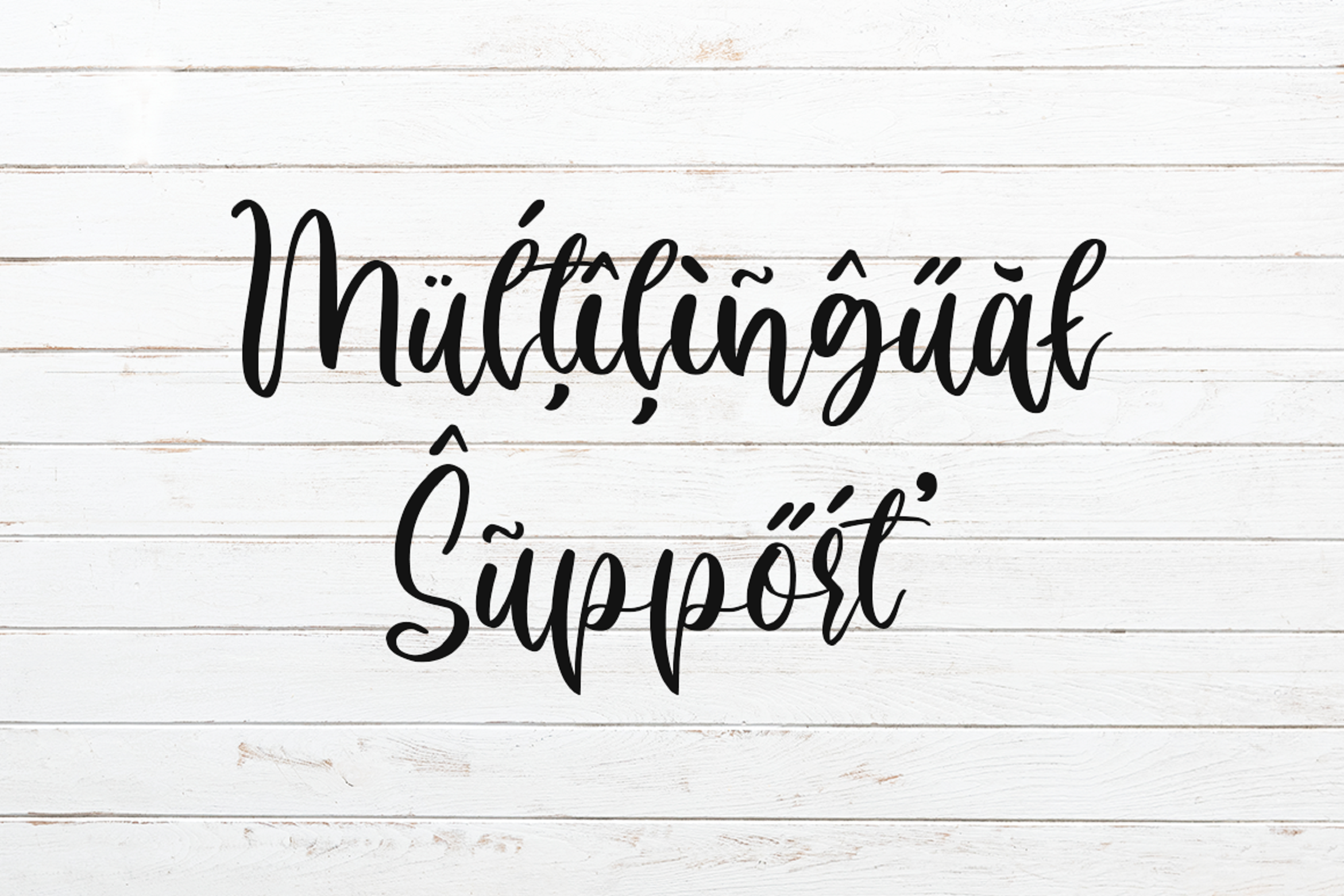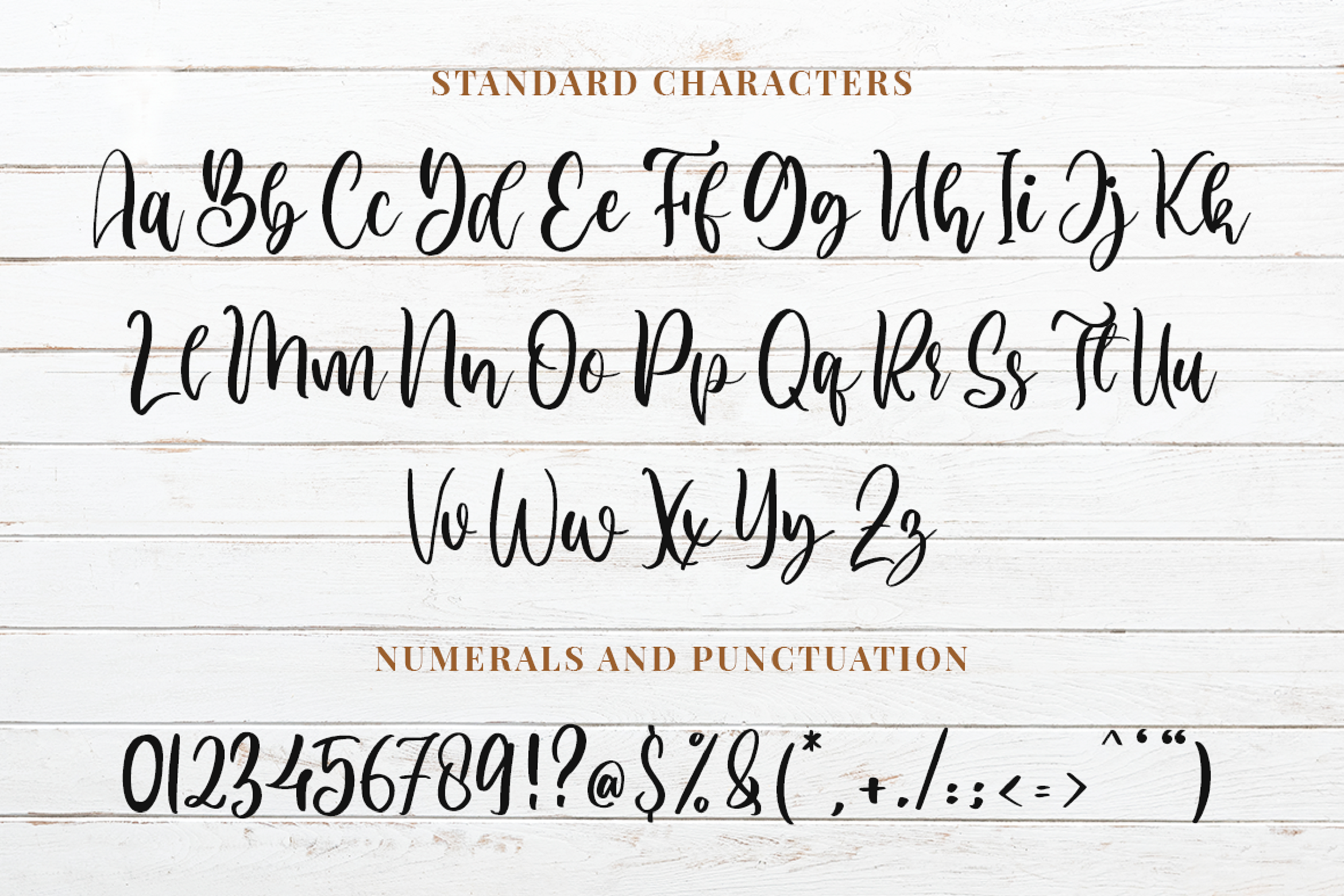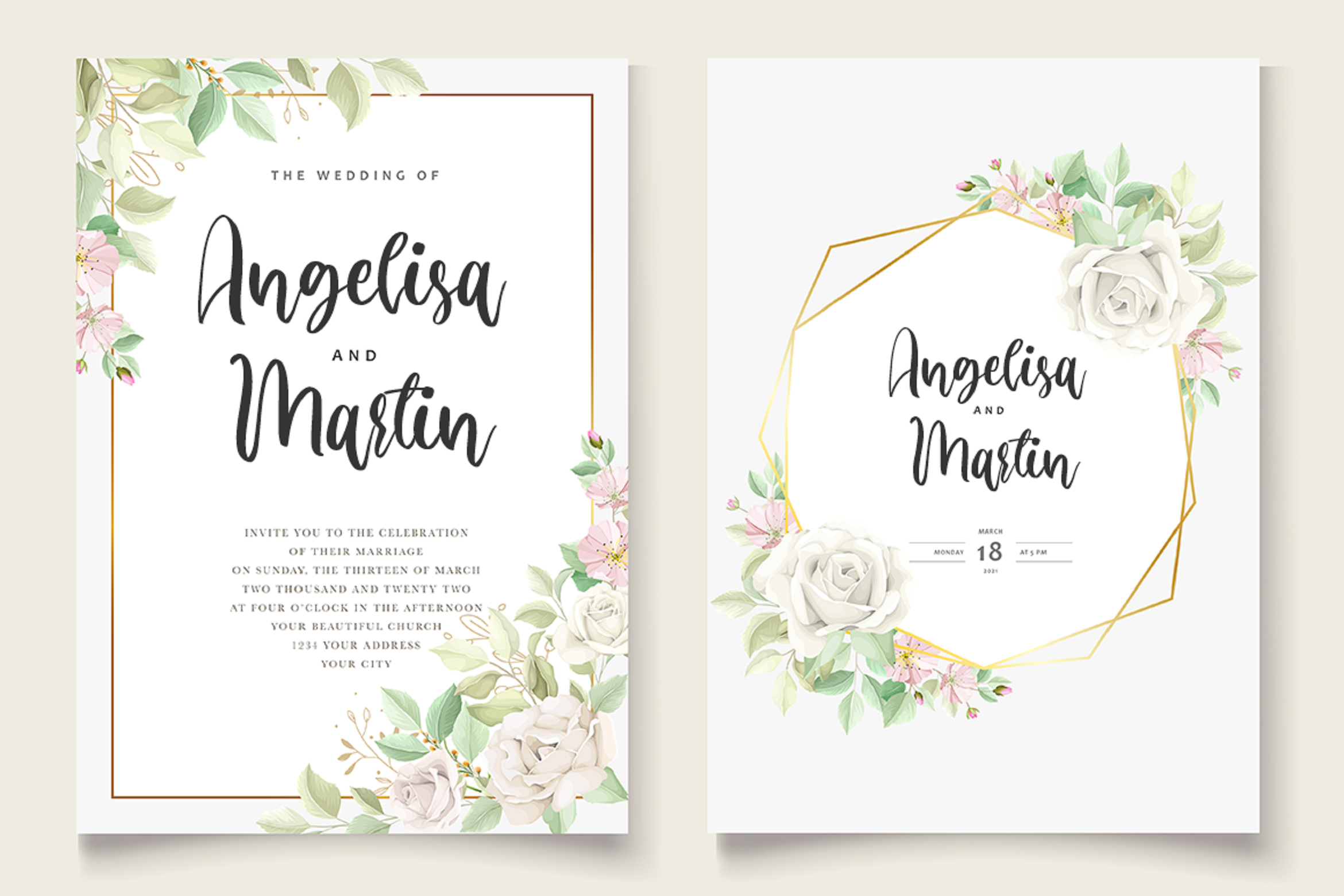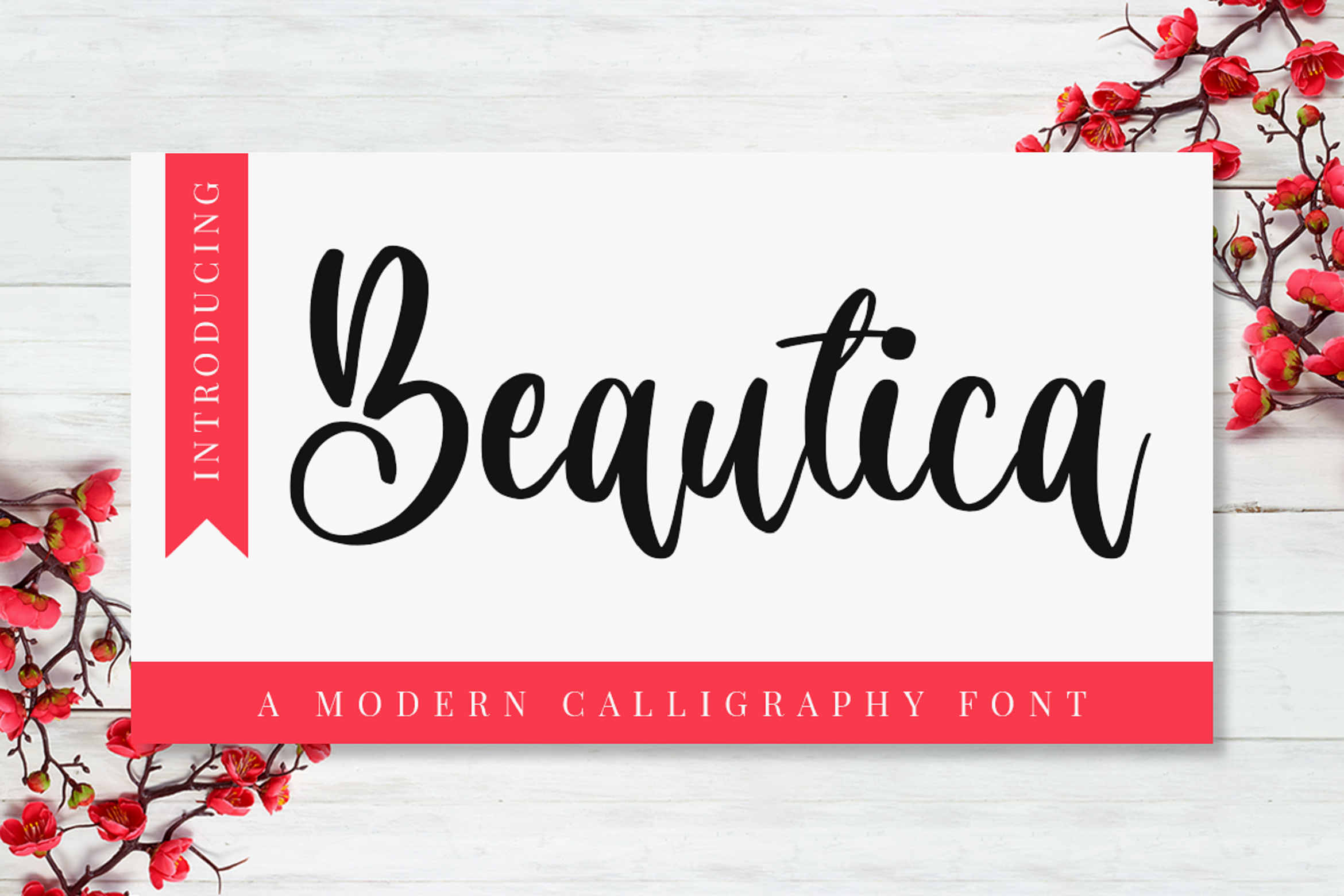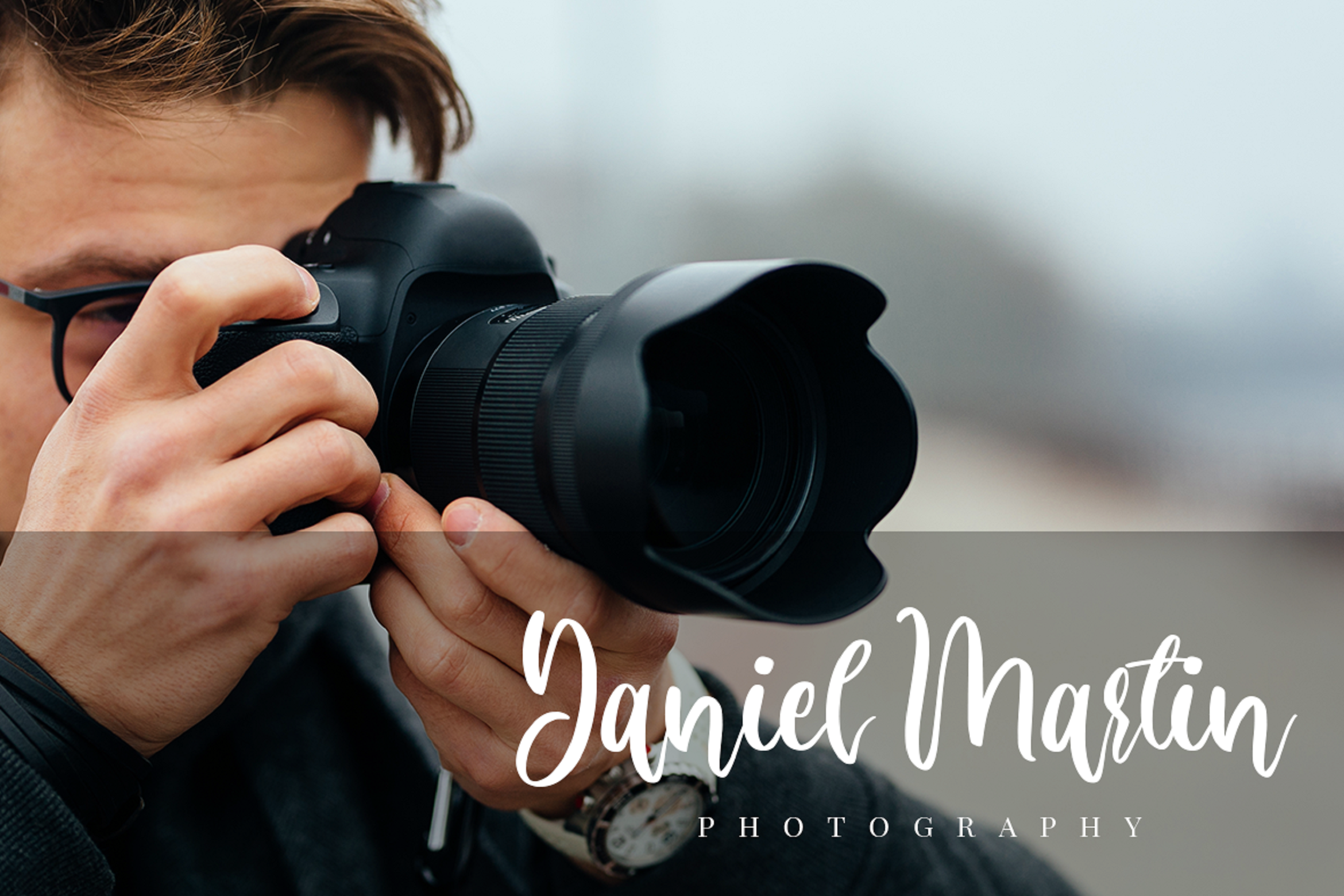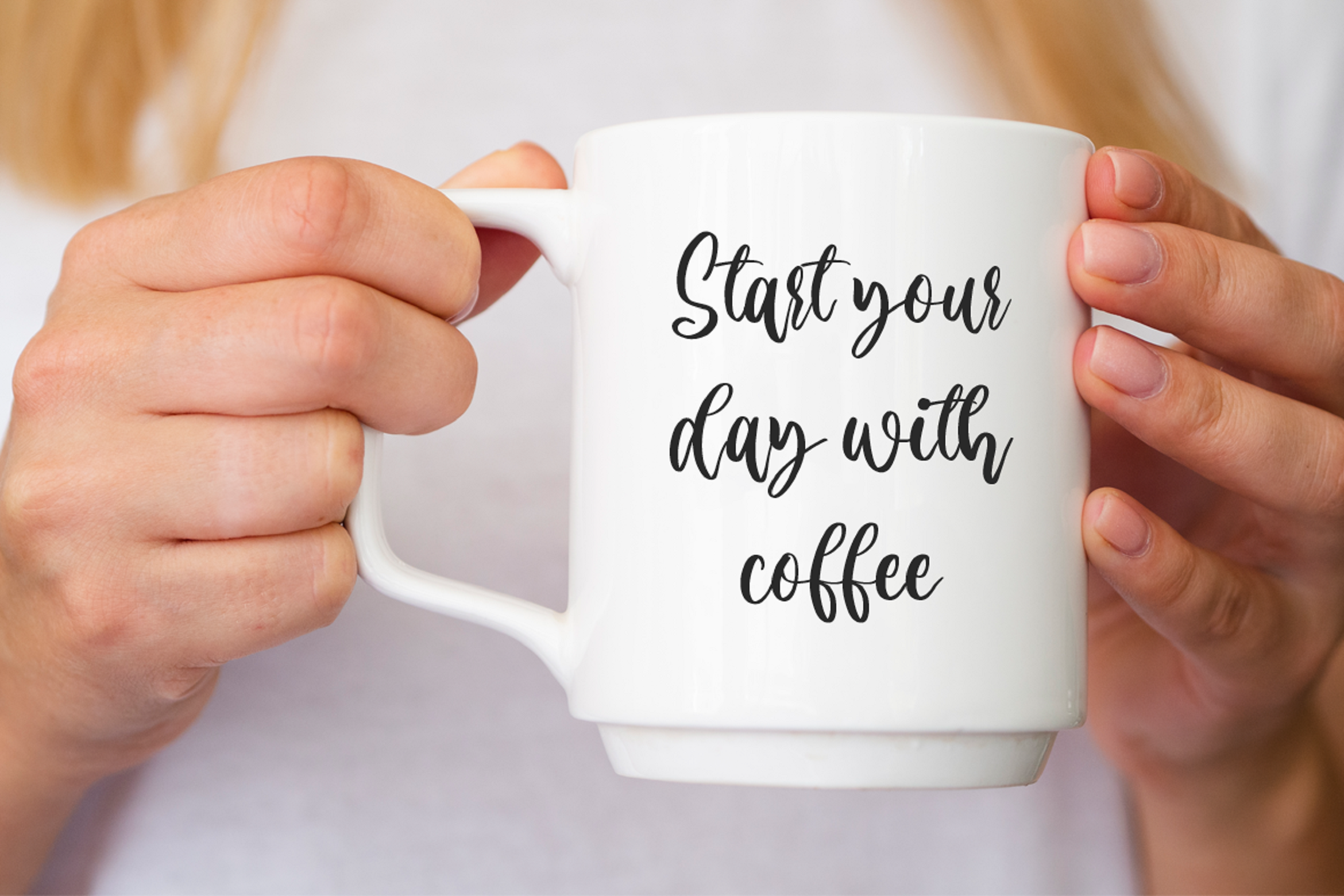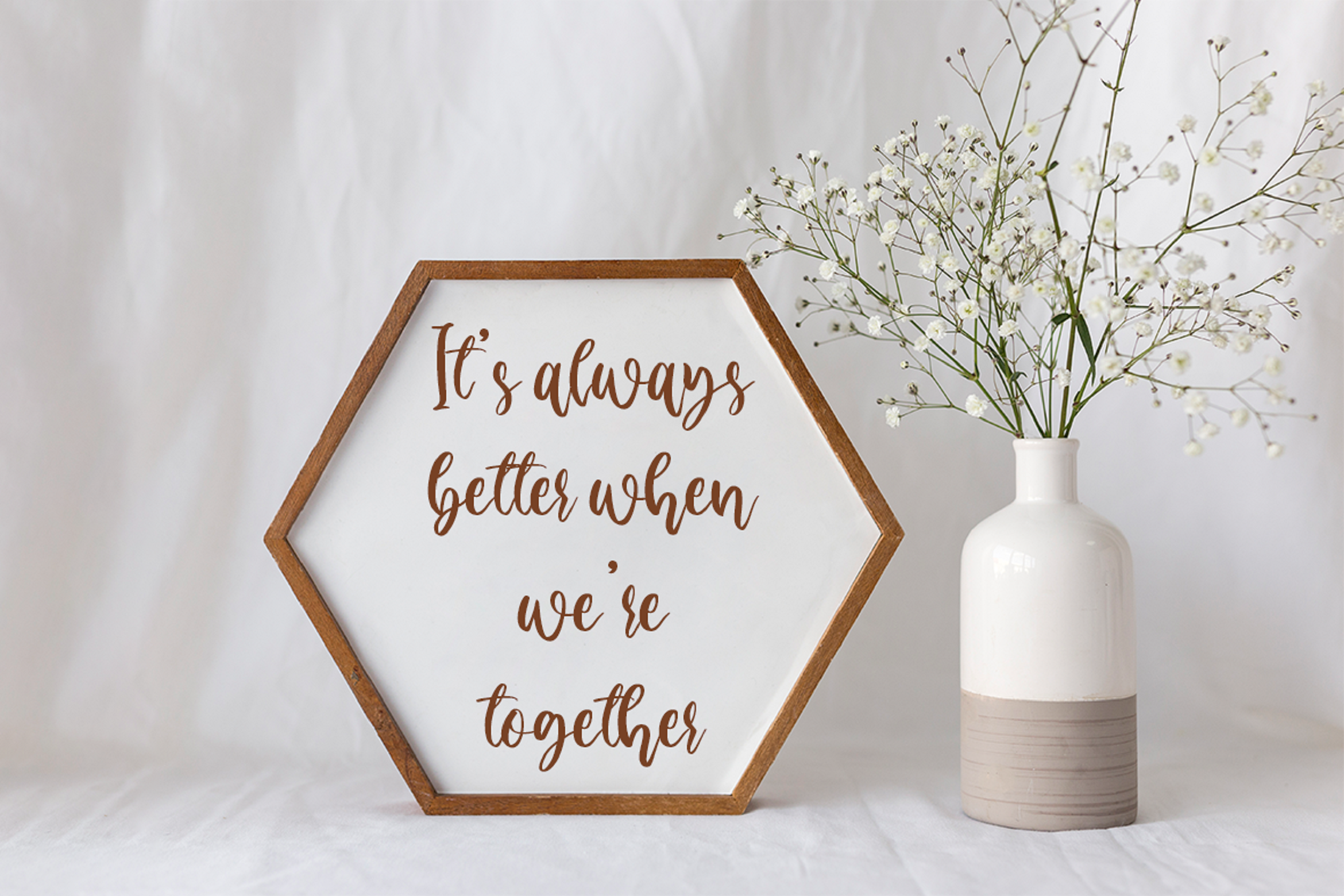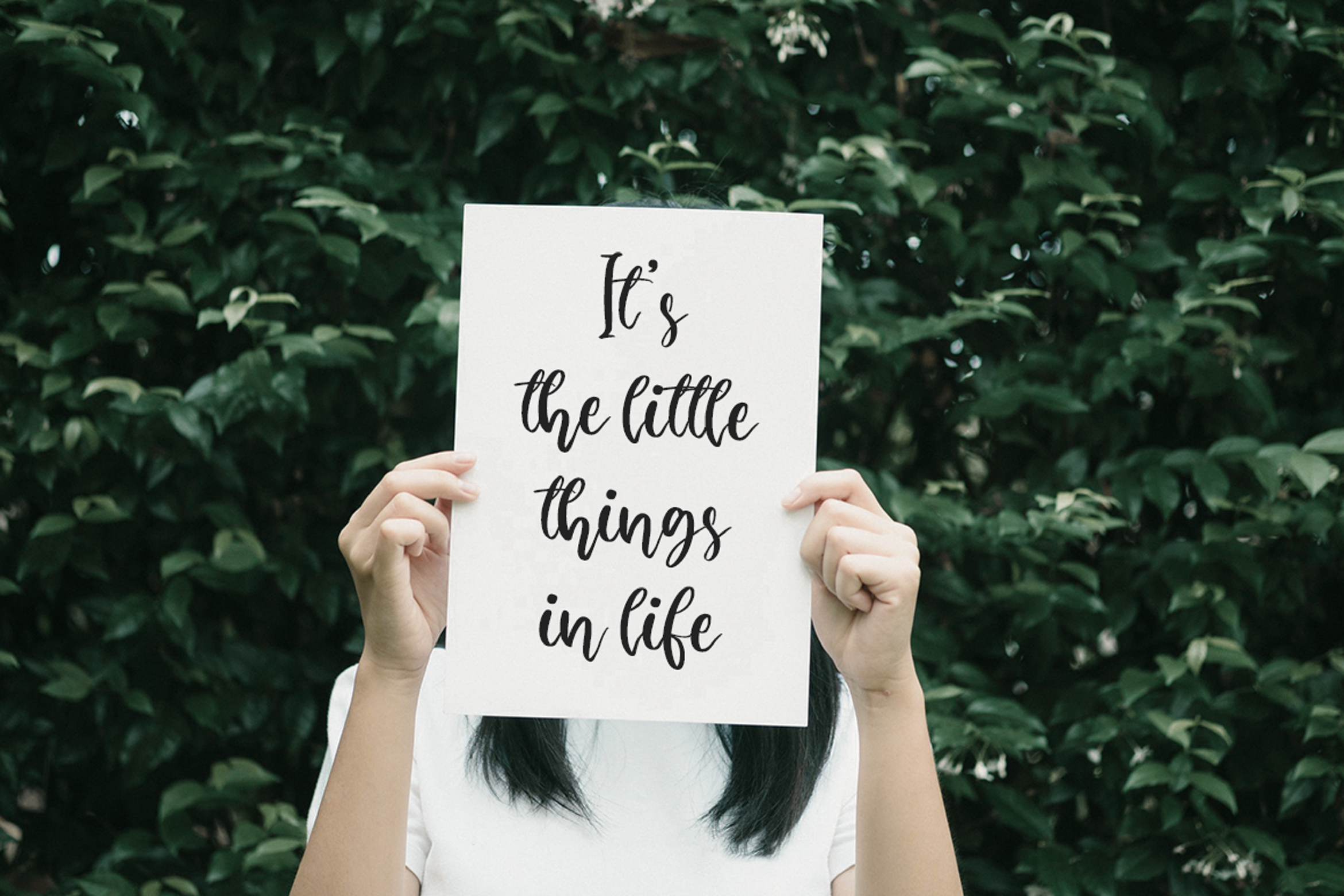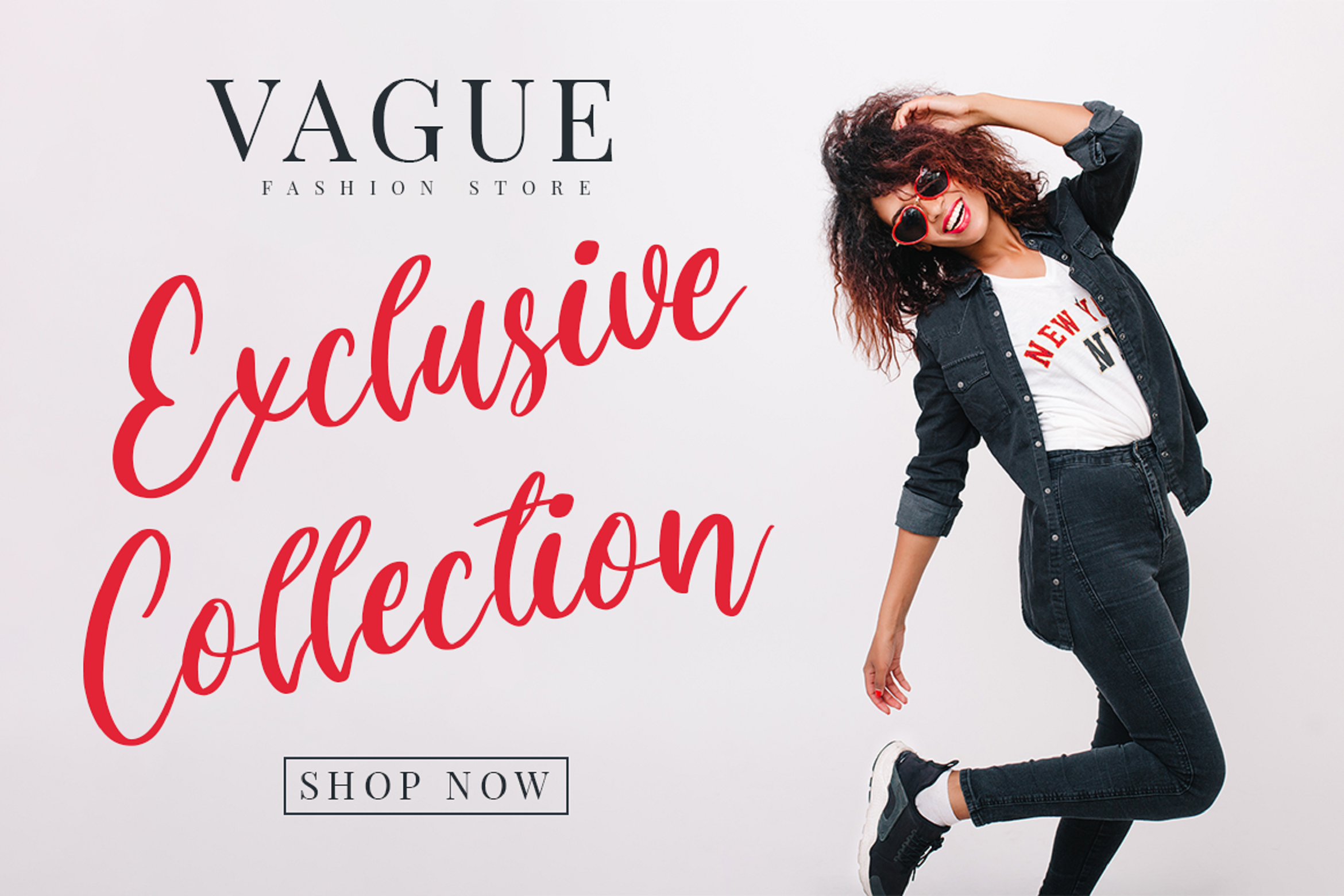
Introducing Beautica - A Modern Calligraphy Font This is a handcrafted and most natural, elegant, simple yet angelic font. This beautiful font can be used for various projects and promotions. Go ahead and use it on your website, your social media branding, Pinterest banners, printed invitations, and more! Inspire your audience, clients, or guests with richness of elegance with this modern handwritten font. What you’ll get: * Beautica. otf * Beautica. ttf * Multilingual & Ligature Support * Full sets of Punctuation and Numerals Compatible with: * Adobe Suite * Microsoft Office * KeyNote * Pages Software Requirements: The fonts that you’ll receive in the pack are widely supported by most software. In order to get the full functionality of the selection of standard ligatures (custom created letters) in the script font, any software that can read OpenType fonts will work. We hope you enjoy this font and that it makes your branding sparkle! Feel free to reach out to us if you’d like more information or if you have any concerns. | Calligraphy Font | Graphue